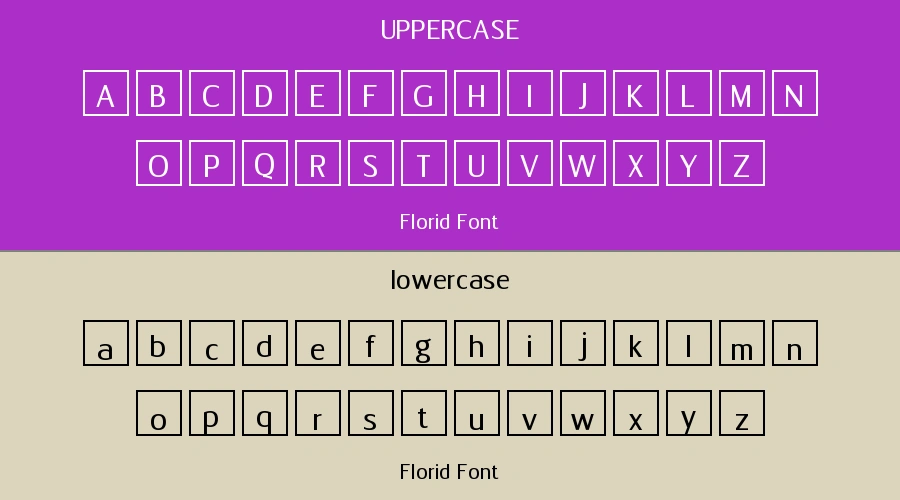
About Florid Font
Florid Font stands out for its distinctive combination of ink traps and classic beauty. Ideal for mobile applications, it provides the consistency and industry recognition that professional projects demand. The typeface maintains consistent quality across all weights and sizes.
Key features include refined transitional forms and practical lining figures, enhancing typographic expression. In campaign headers applications, Florid Font demonstrates exceptional headline impact. The counter size and lifestyle connection contribute to its distinctive character and professional appeal.